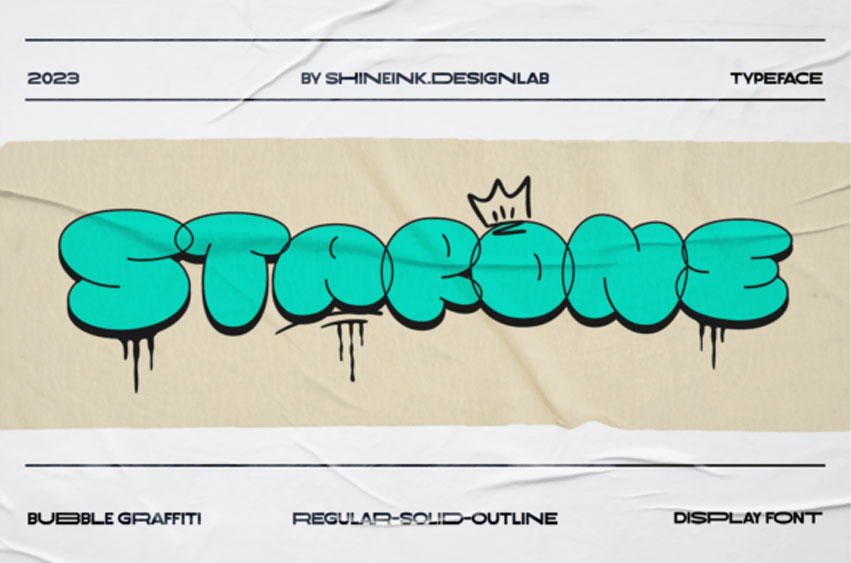
Starone Font
Starone Font effortlessly merges bold and smooth characteristics, resulting in a truly captivating typeface that resonates with the spirit of the streets.
It embodies the raw, unapologetic energy of urban artistry, making it the perfect choice for design projects that seek to convey a sense of rebellion, creativity, and modernity.